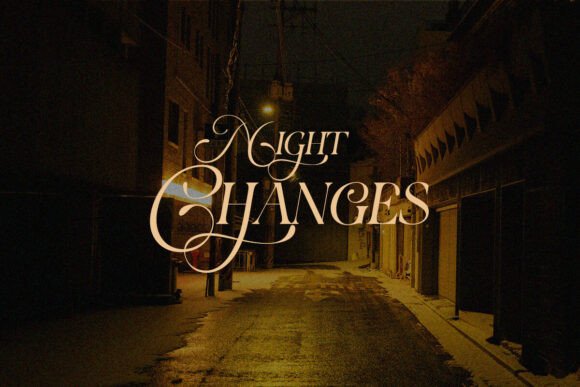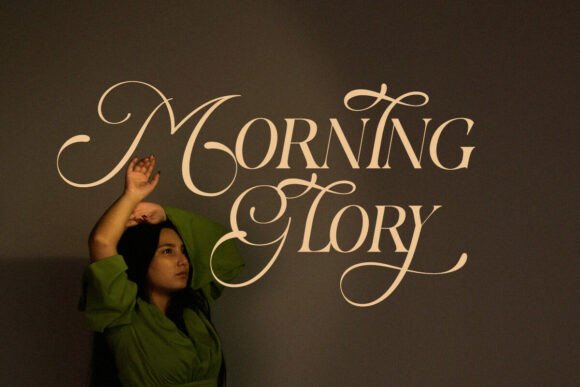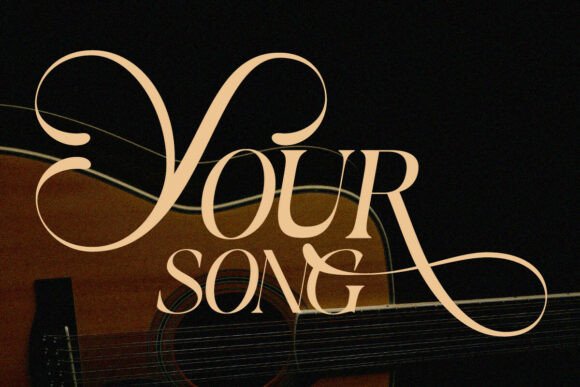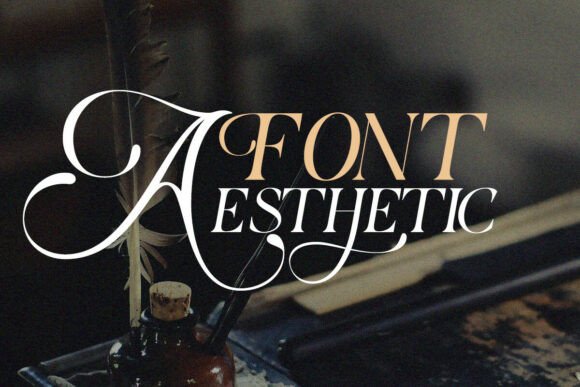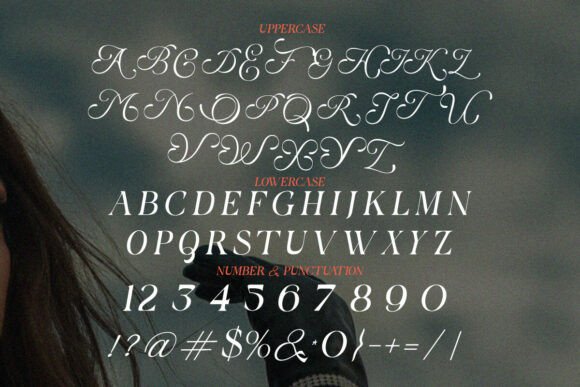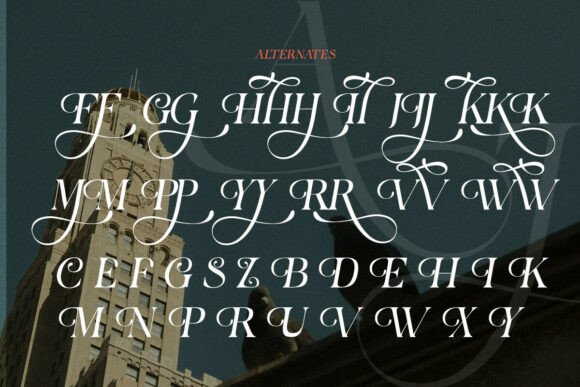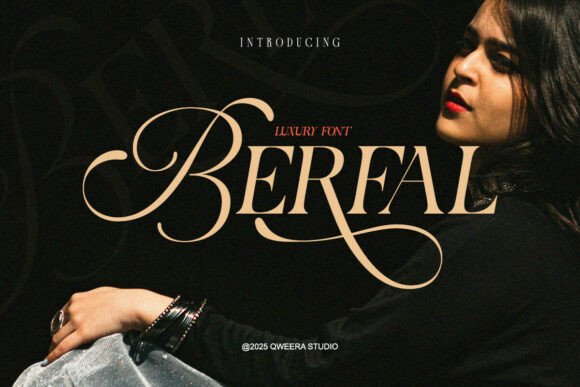
Berfal Font: The Epitome of Modern Luxury
In the realm of typography, few fonts manage to convey the essence of luxury and sophistication as effortlessly as Berfal. This stunning serif typeface has been meticulously crafted to embody the very spirit of elegance, making it an indispensable tool for designers seeking to infuse their creations with a sense of refinement and poise.
The Design Philosophy Behind Berfal
Berfal’s design is rooted in a deep understanding of the delicate balance between classic proportions and modern aesthetics. Every curve, stroke, and serif has been carefully shaped to exude confidence and sophistication, reflecting a harmonious blend of timeless elegance and contemporary flair. This thoughtful approach to design enables Berfal to adapt seamlessly across various media, from print to digital, ensuring that its beauty is consistently showcased, regardless of the platform.
The Unique Charm of Berfal
One of the most distinctive features of Berfal is its graceful contrast and fluid movement. As the eye moves through the text, each letter flows naturally into the next, creating a rhythm that feels both poised and expressive. The subtle flared details and sweeping terminals imbue the typeface with a unique character that is at once elegant and understated. This masterful balance of form and function makes Berfal an ideal choice for designers who appreciate the nuances of luxury typography.
Berfal: A Typeface of Balance
At its core, Berfal represents the perfect harmony between seemingly disparate elements: minimalism and luxury, tradition and innovation. This balance is what sets Berfal apart, offering a typeface that is both beautifully refined and strikingly modern. For designers and crafters who value equilibrium in their typographic choices, Berfal presents a compelling solution that meets the demands of high-end branding.
Ideal Applications for Berfal
Given its luxurious feel and versatile nature, Berfal is particularly well-suited for applications that require a premium aesthetic. Haute couture labels, jewelry lines, boutique hotels, and editorial projects seeking to convey a sense of exclusivity and sophistication will find Berfal to be an invaluable asset. Its ability to command attention while maintaining an air of elegance makes it a versatile typeface for a wide range of creative projects.
Berfal in the Digital Age
In today’s digital landscape, the need for typefaces that can navigate both print and digital media with ease has never been more pressing. Berfal rises to this challenge, demonstrating exceptional legibility and aesthetic appeal across various digital platforms. Whether used in website design, social media assets, or digital advertising, Berfal ensures that luxury branding translates effectively into the digital realm.
Berfal stands as a testament to the power of thoughtful design in typography. Its blend of classic elegance and modern sophistication offers designers a unique tool for creating luxury branding that resonates with audiences. For those who seek to imbue their projects with a sense of refinement, poise, and modern luxury, Berfal emerges as an unparalleled choice. With its precise curves, elegant serifs, and fluid movement, Berfal not only speaks the language of luxury but does so with a voice that is both timeless and distinctly contemporary.
Embracing Berfal in Your Design Journey
As designers and crafters continue to explore new ways to express luxury and elegance in their work, Berfal presents an exciting opportunity to elevate branding and design projects. By incorporating Berfal into their typographic toolkit, creatives can harness the essence of modern luxury, bringing a nuanced and sophisticated voice to their audience. Whether you’re crafting a brand identity, designing a boutique hotel’s signage, or developing a luxury fashion label’s marketing materials, Berfal offers the precision, elegance, and versatility needed to make a lasting impression.
In the world of typography, few fonts manage to capture the quintessence of luxury as compellingly as Berfal. It is, without a doubt, a typeface that will continue to inspire designers and crafters alike, empowering them to create works that embody the very best of modern luxury.